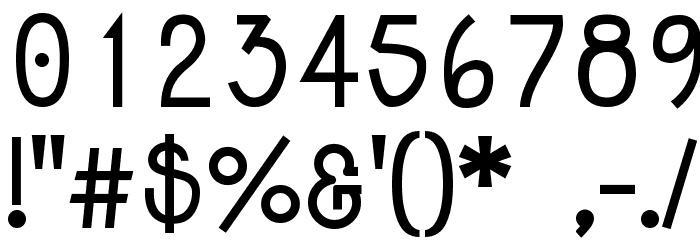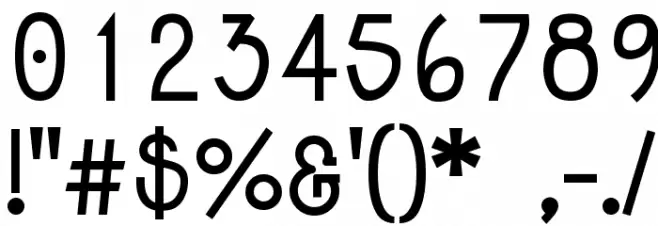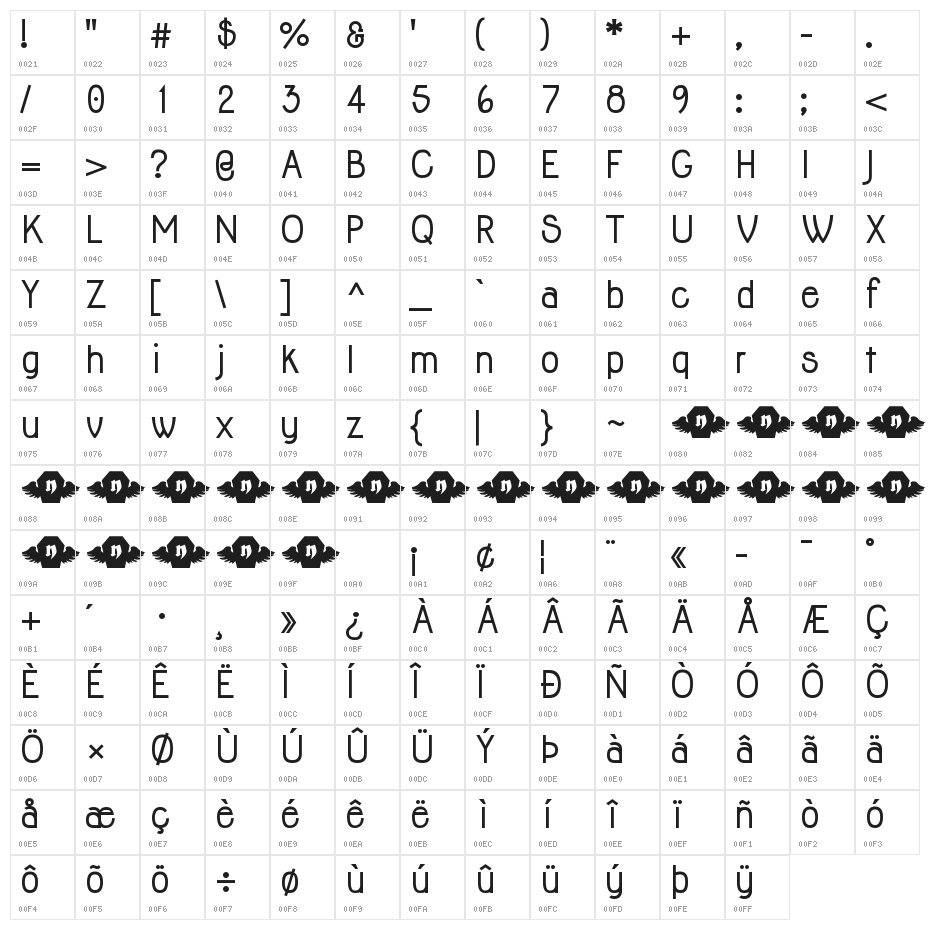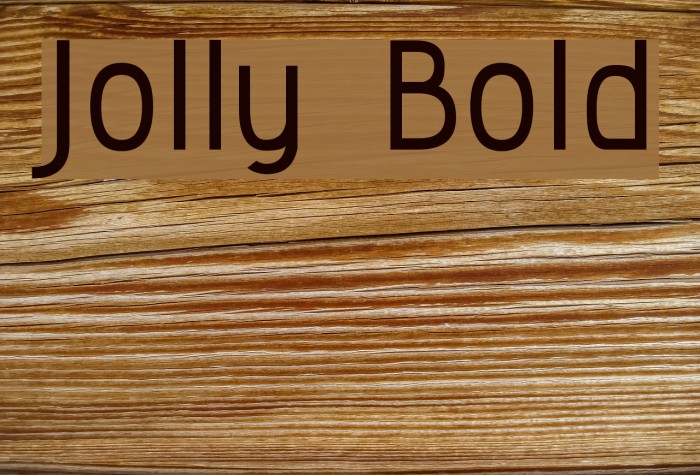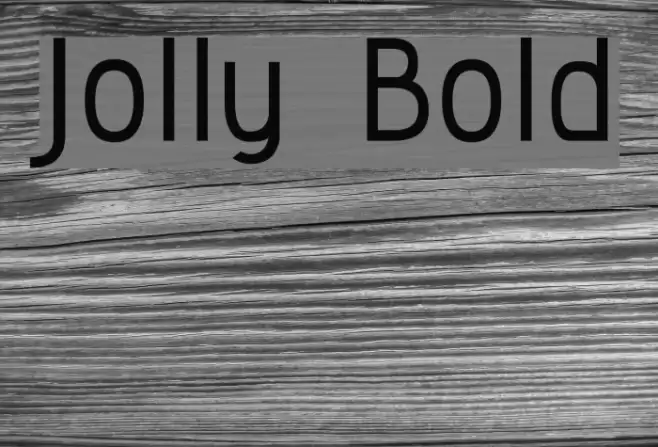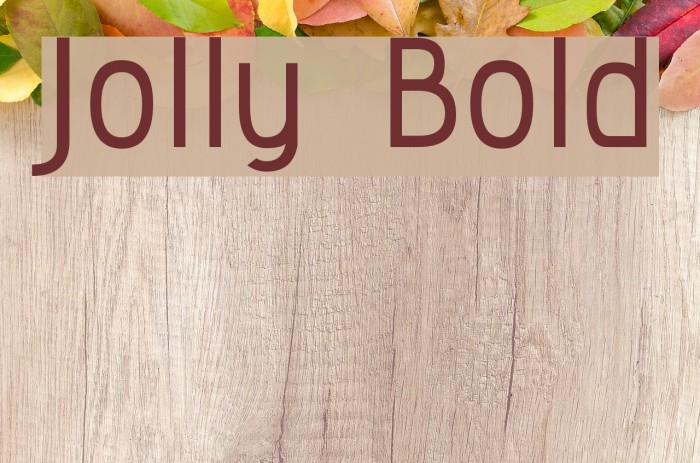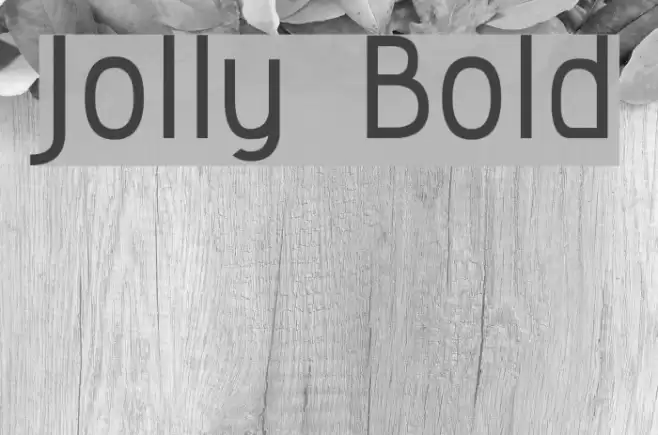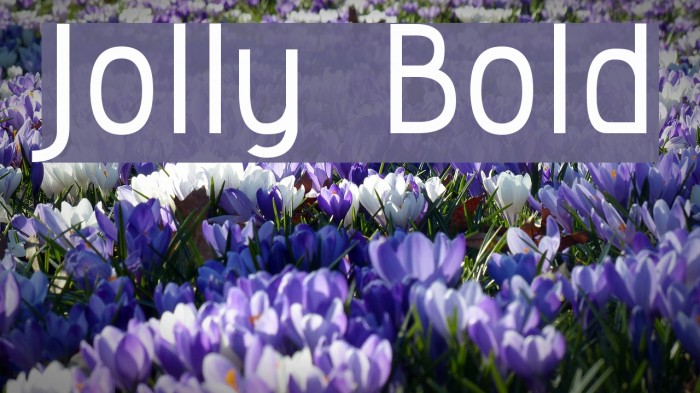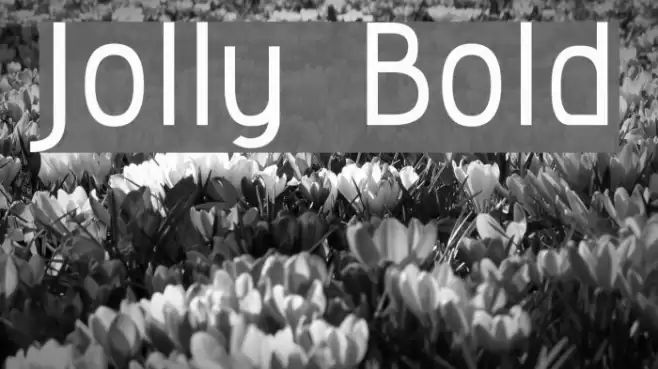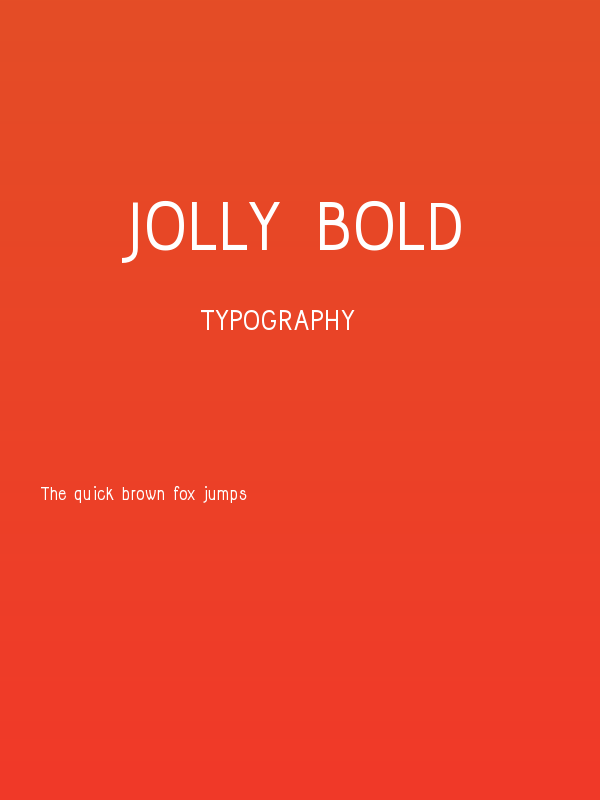
Jolly Bold Font
Jolly Bold Description
This font features a clean and modern sans-serif design, characterized by its bold and uniform stroke weight. The characters are well-proportioned with a consistent height, providing excellent readability. The uppercase letters exhibit a strong presence, while the lowercase letters maintain a balanced and approachable look. The numerals are clear and straightforward, making them suitable for various applications. Special characters are distinct and harmonize well with the overall style. The font's simplicity and clarity make it versatile for both digital and print media.
| Use Case | Headlines, Logos, Web design |
| Proposed Projects | Ideal for branding, advertising, web design, and editorial projects where clarity and modernity are essential. |